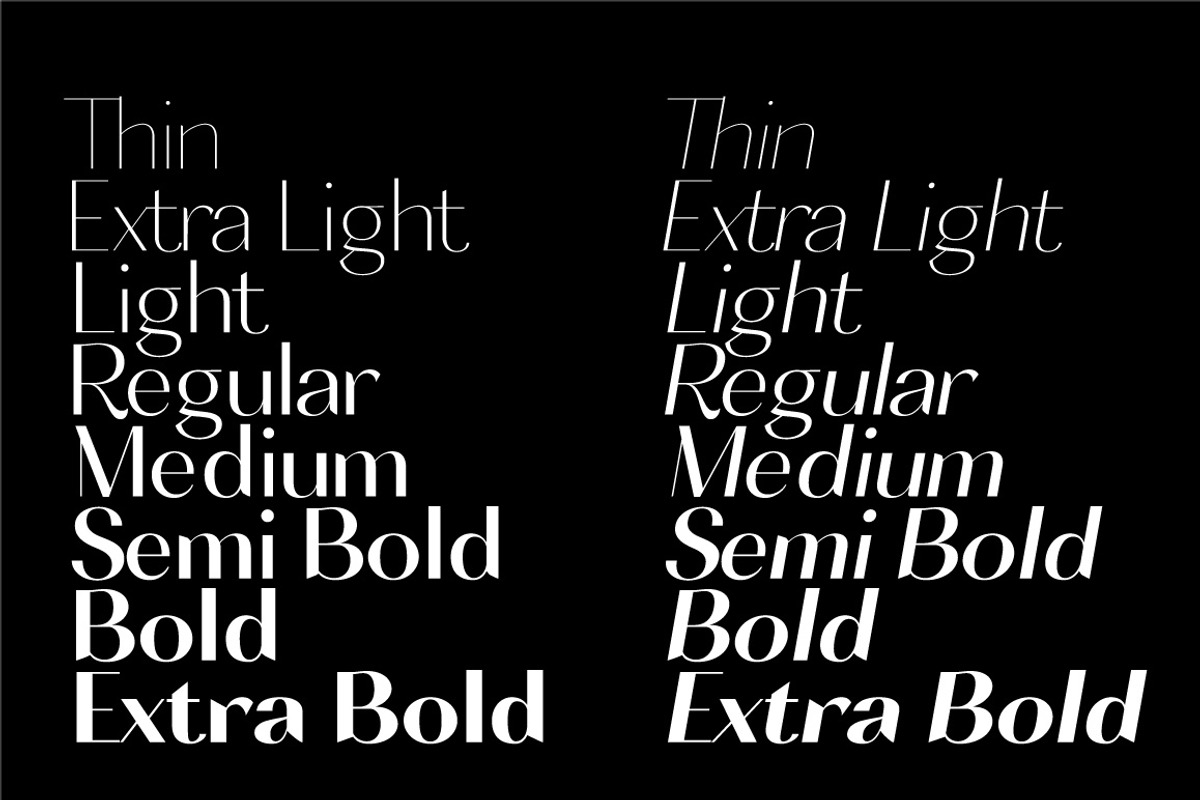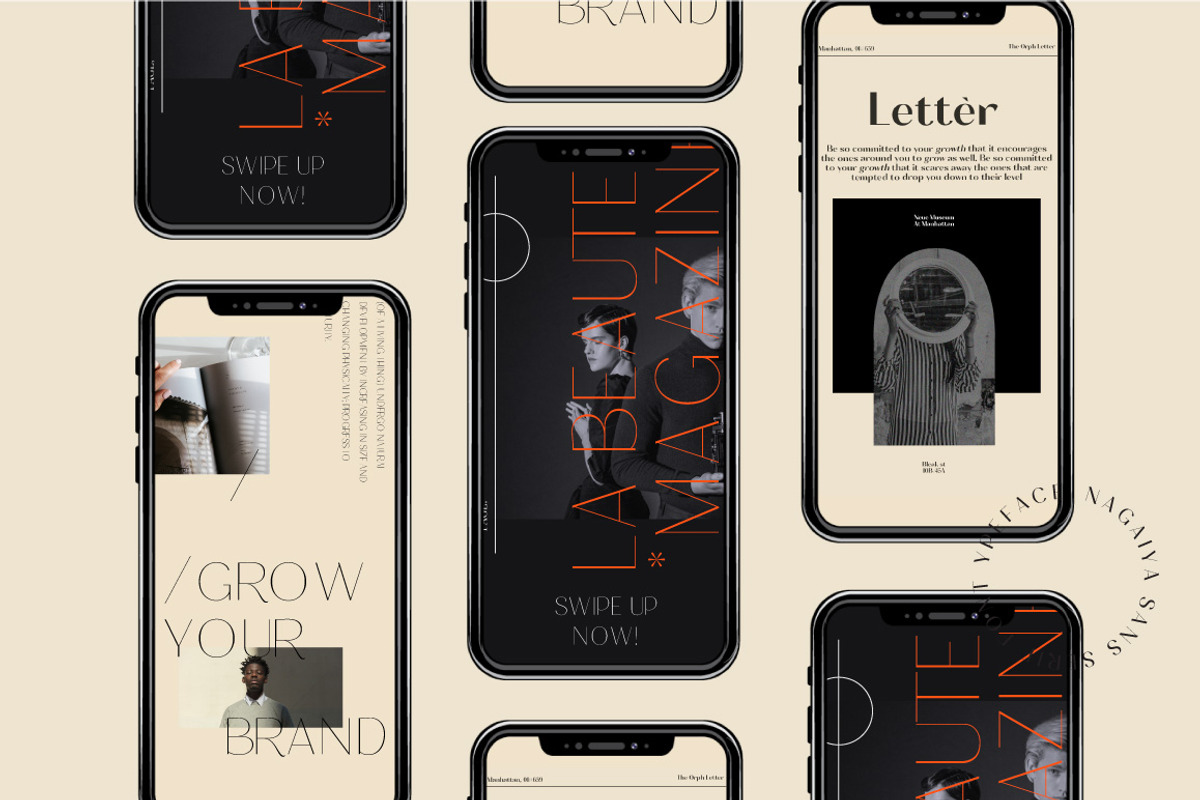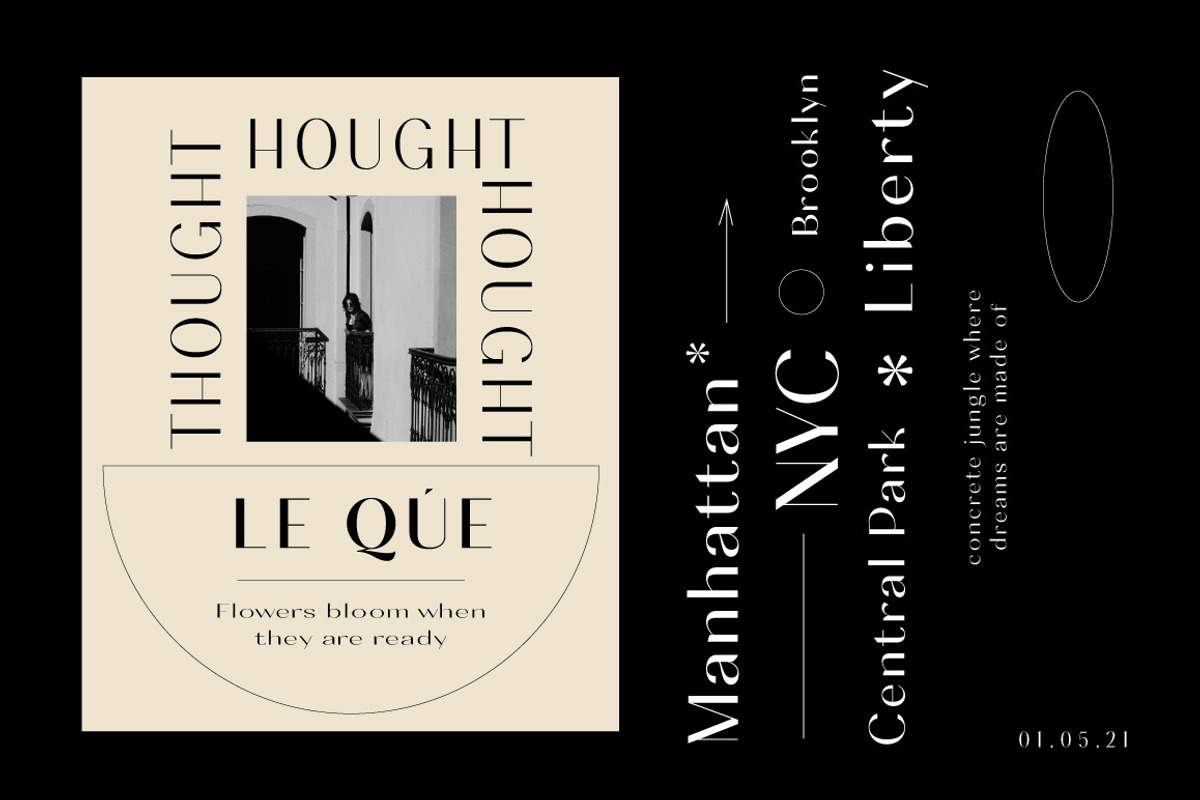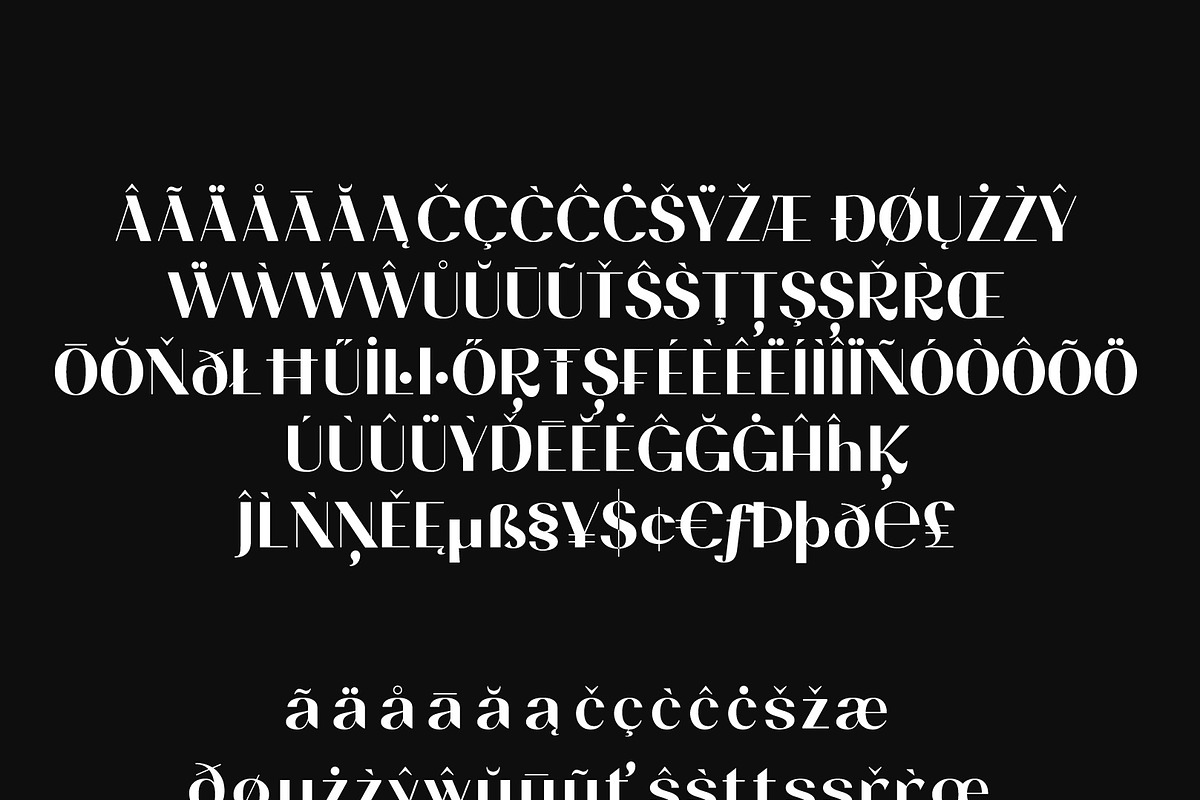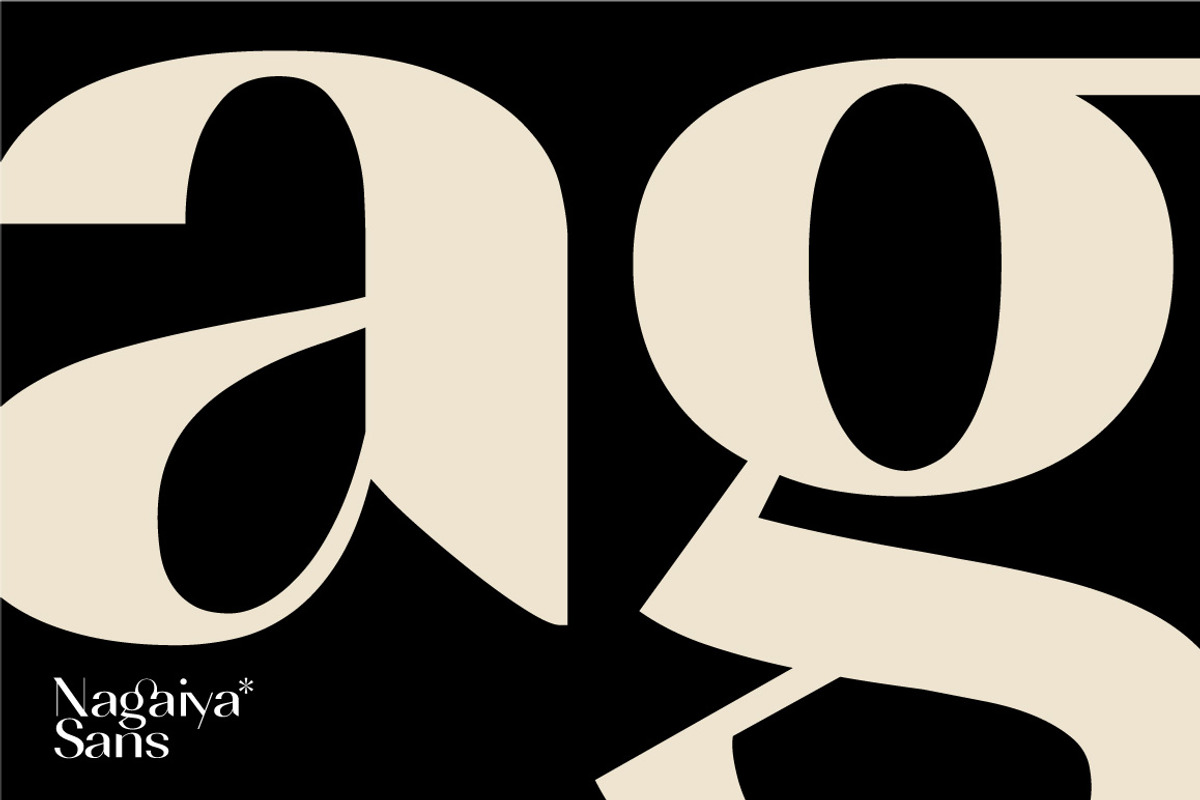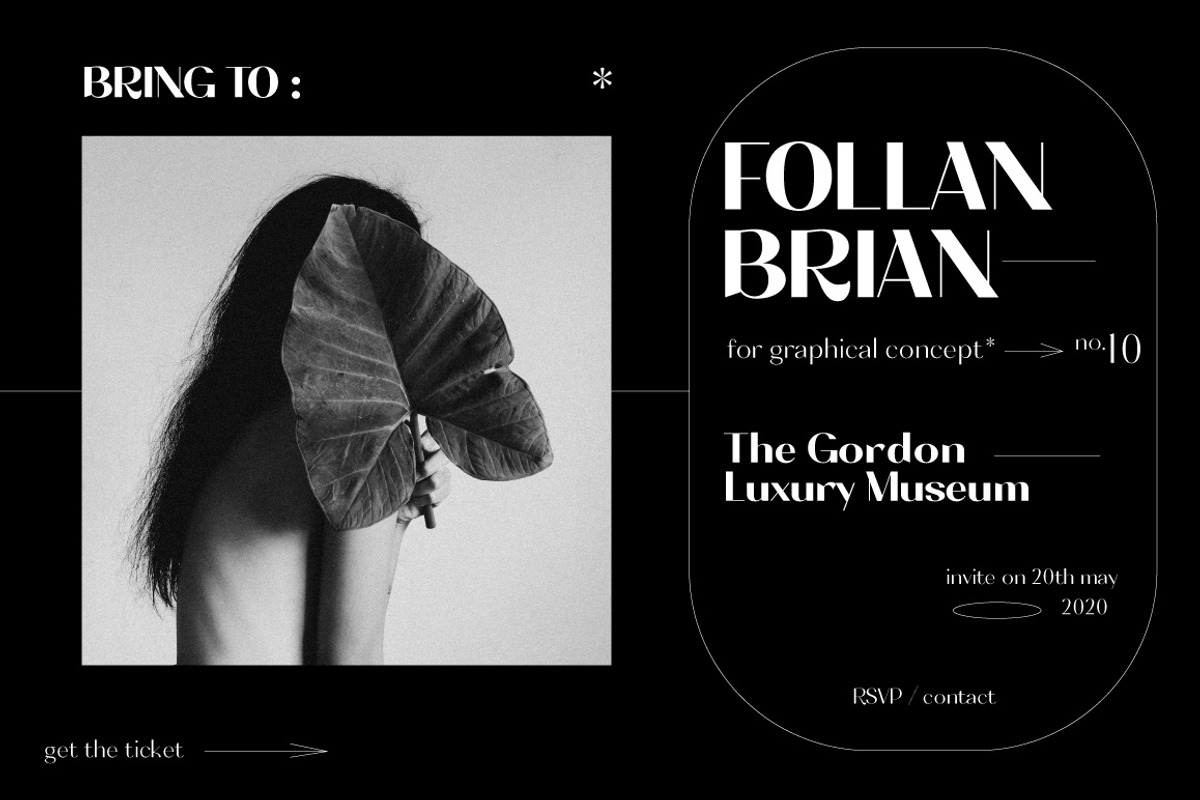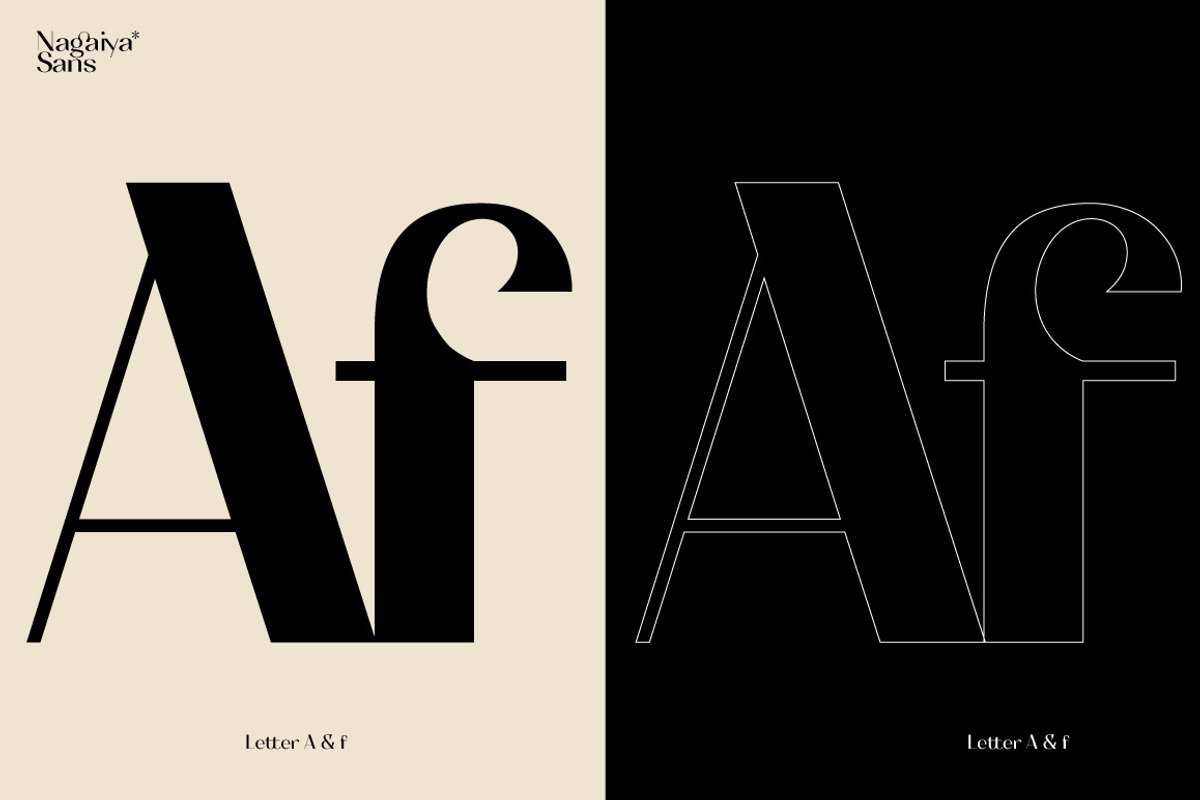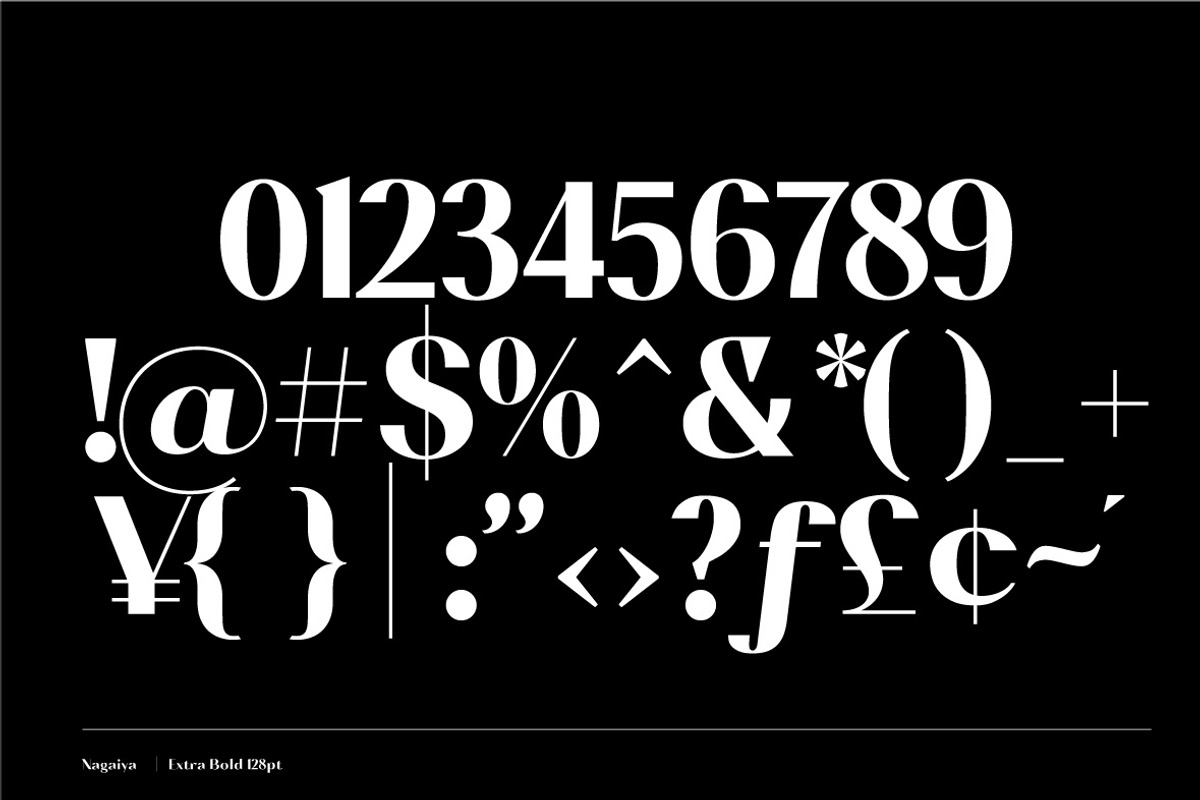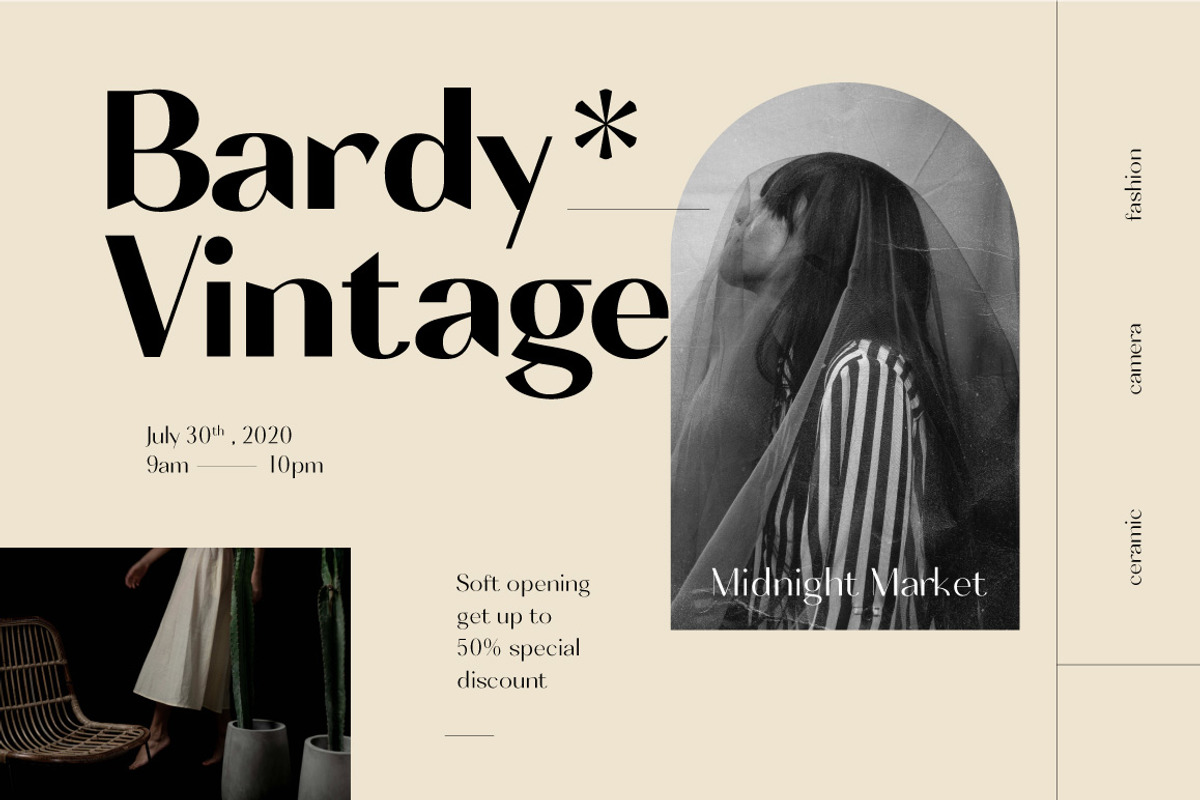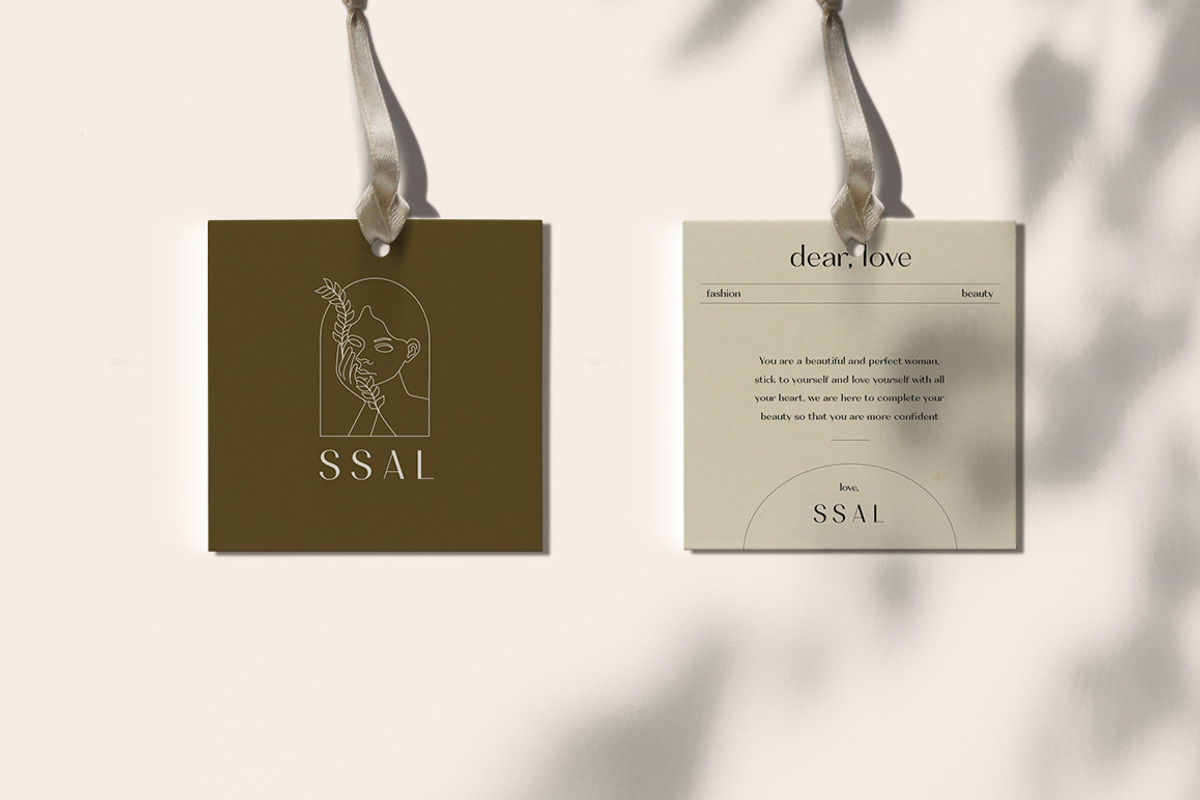
Nagaiya - Font Family With Variable
Designed by Aulia Rahman and Hendra Maulia, Nagaiya is a versatile companion, perfectly usable for a variety of applications. But especially the areas of branding and editorial design. There in particular, the typeface impresses with its look and feel, making the design pleasant and smooth. Take a look at the wonderful lowercase letter /a, or the spiky spurs of the other lowercase letters. That's where the fun begins.
Nagaiya come with elegant style, strength and contrasts, with features an extended latin character set of 377 glyphs covering over 28 languages, and includes advanced open type features like standard and discretionary ligatures, positional numerals, stylistic alternates and case sensitive brackets. Mixing versatility and personality, Nagaiya is ready to be like a top model on the design catwalk, making your projects looking classic but contemporary, finely tuned but assertive, and elegant as the best luxury fashion.